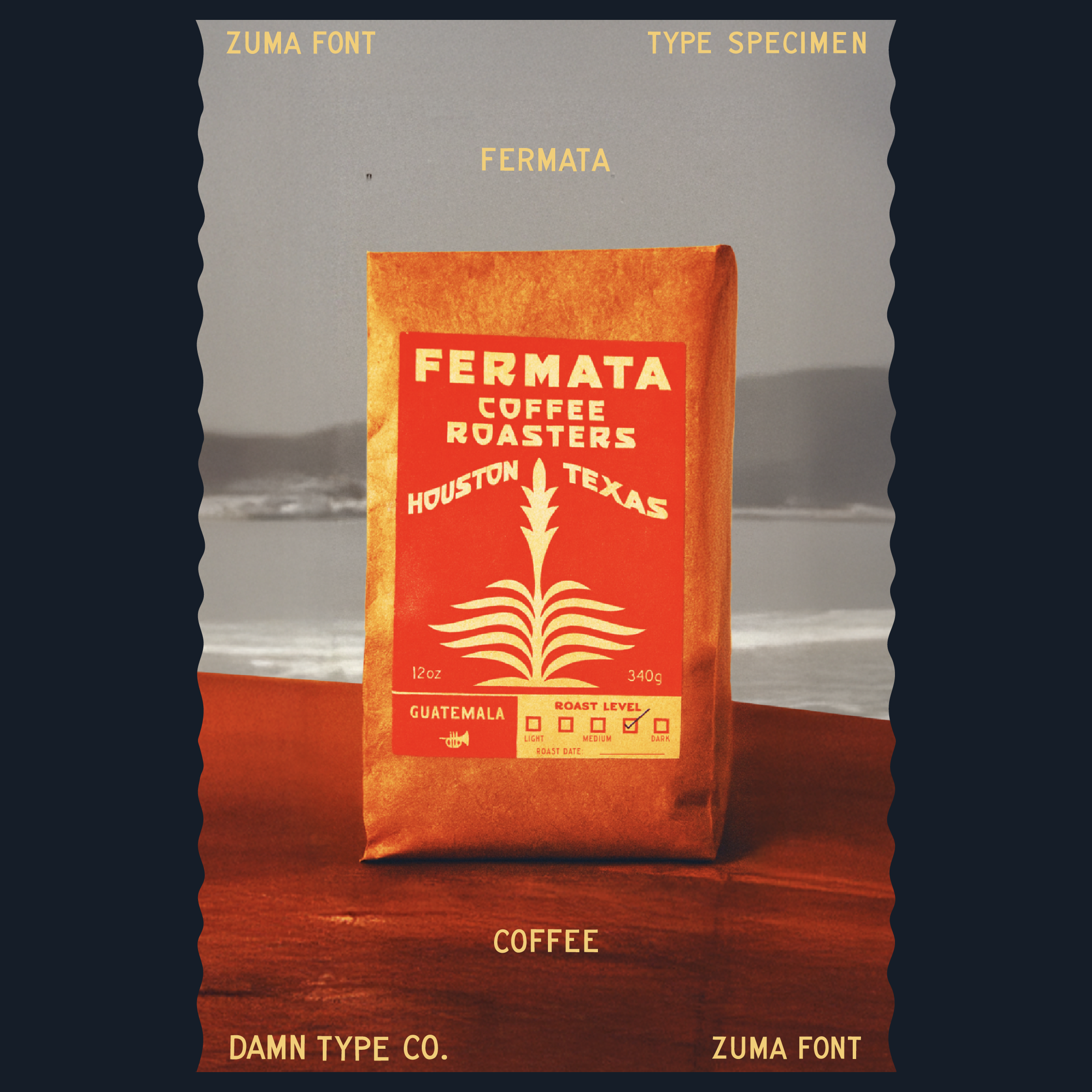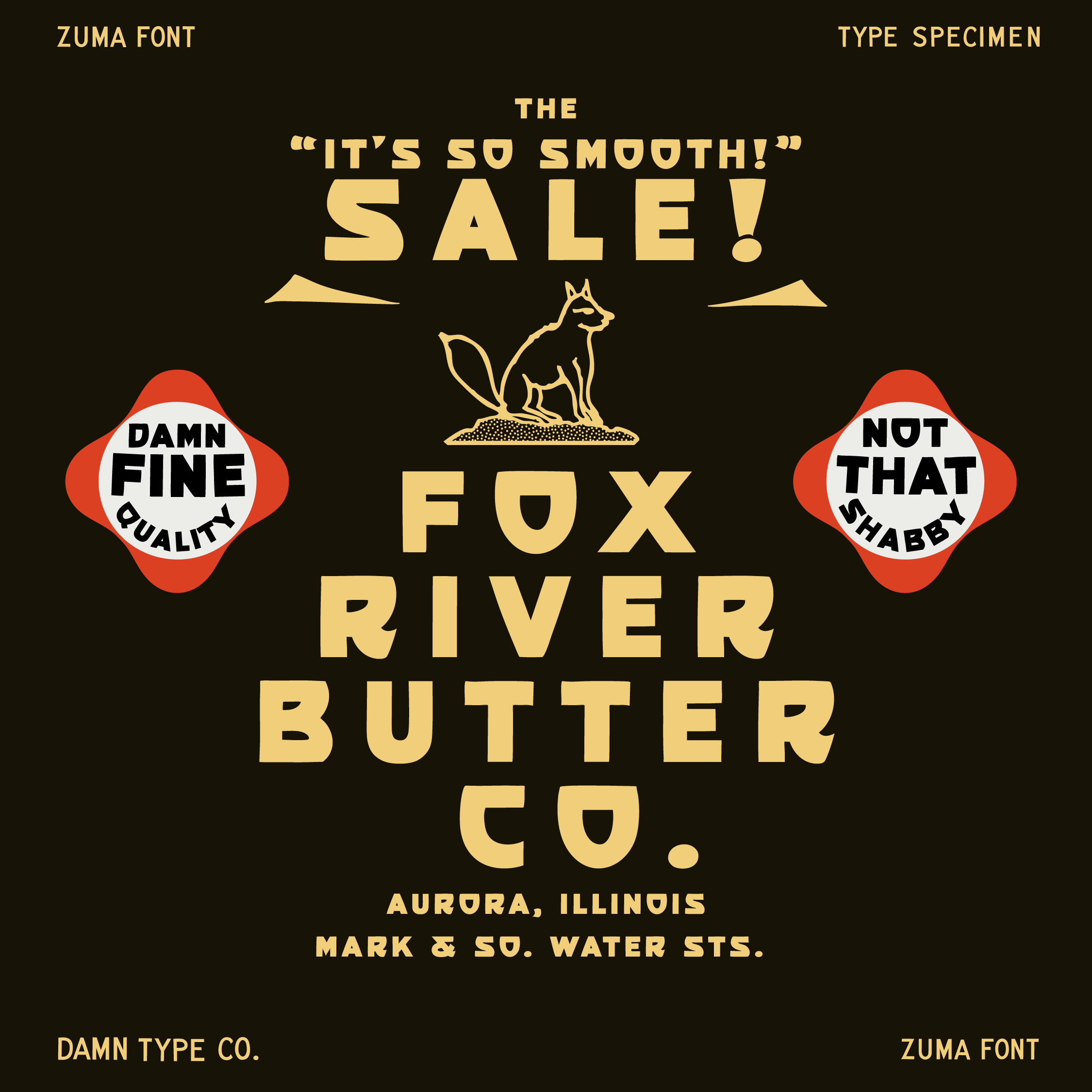
Zuma is bold and warm with the touch of the human hand. I hand-drew it based on an alphabet from Heberling’s 1922 Basic Lettering. I refined and balanced with a goal to keep their soul intact. I drew symbols, numbers, fun alts, and diacritics to cover most Western and Latin languages so it can breathe new life into modern work.
I named it after Zuma Beach, its name born from a cartographer’s slip of the pen. It reminds me that errors are both human and beautiful. Like that misspelled map, these letters wear their slight imperfections proudly: hand-drawn edges that lean into their humanity, strokes that feel cut from paper. Zuma’s voice is loud and unafraid to take up space, perfect for posters, headlines, and any project that could use a little more salt!
Zuma is bold and warm with the touch of the human hand. I hand-drew it based on an alphabet from Heberling’s 1922 Basic Lettering. I refined and balanced with a goal to keep their soul intact. I drew symbols, numbers, fun alts, and diacritics to cover most Western and Latin languages so it can breathe new life into modern work.
I named it after Zuma Beach, its name born from a cartographer’s slip of the pen. It reminds me that errors are both human and beautiful. Like that misspelled map, these letters wear their slight imperfections proudly: hand-drawn edges that lean into their humanity, strokes that feel cut from paper. Zuma’s voice is loud and unafraid to take up space, perfect for posters, headlines, and any project that could use a little more salt!